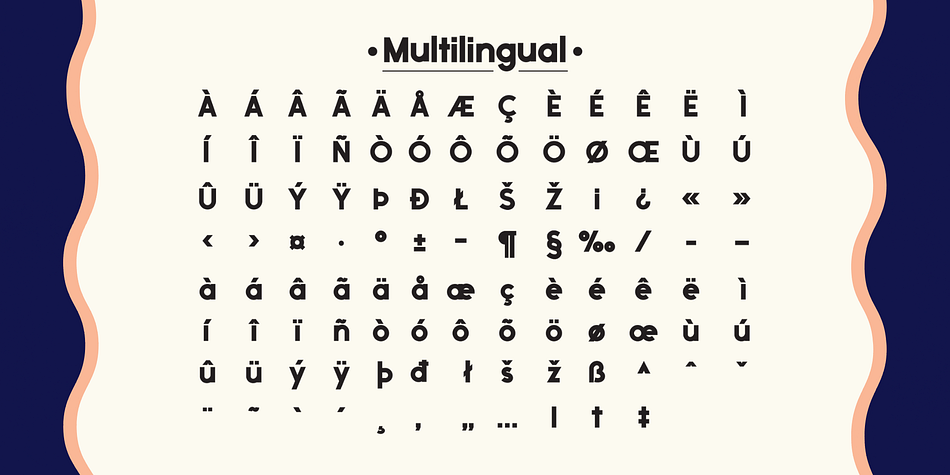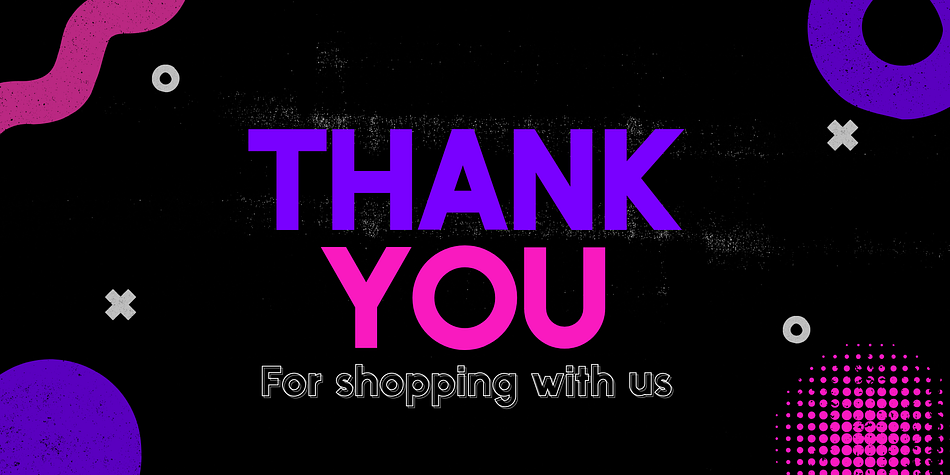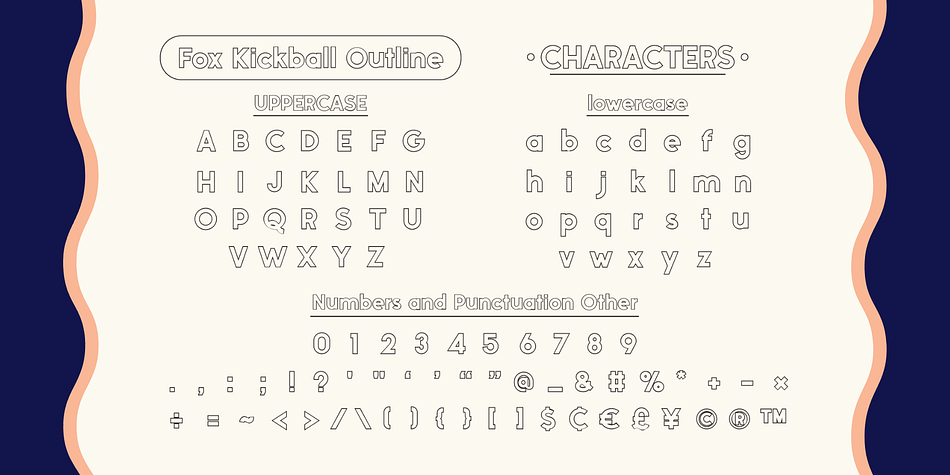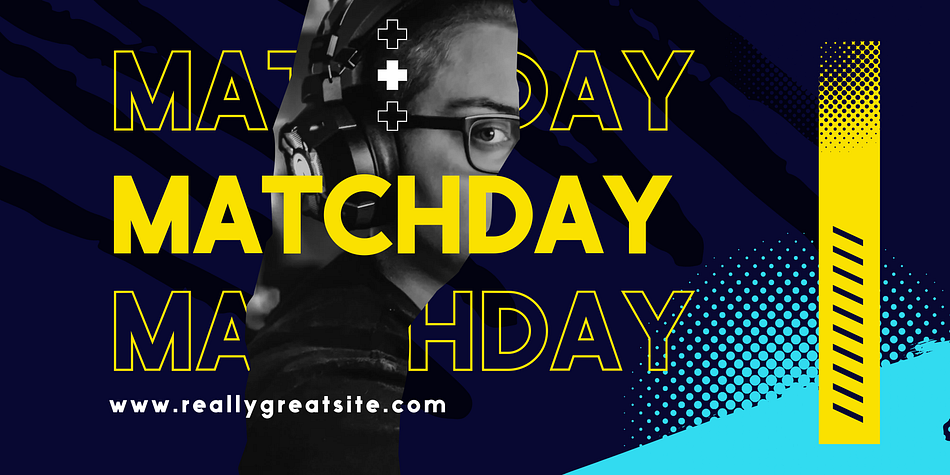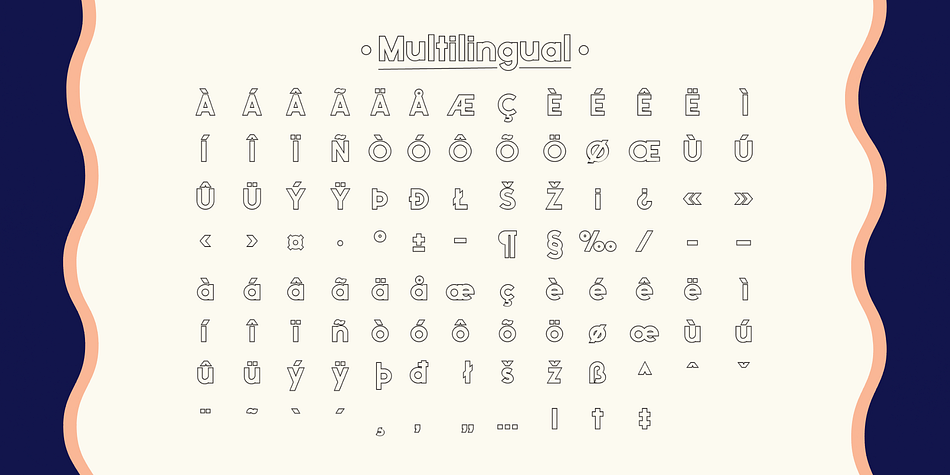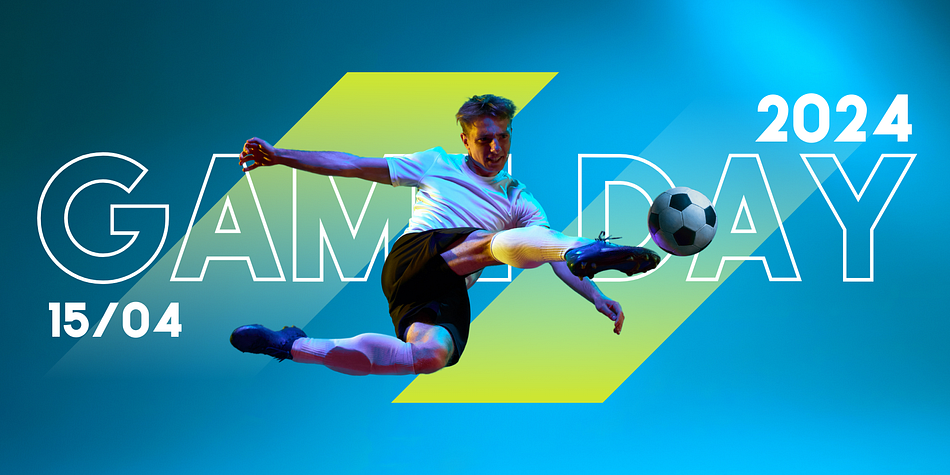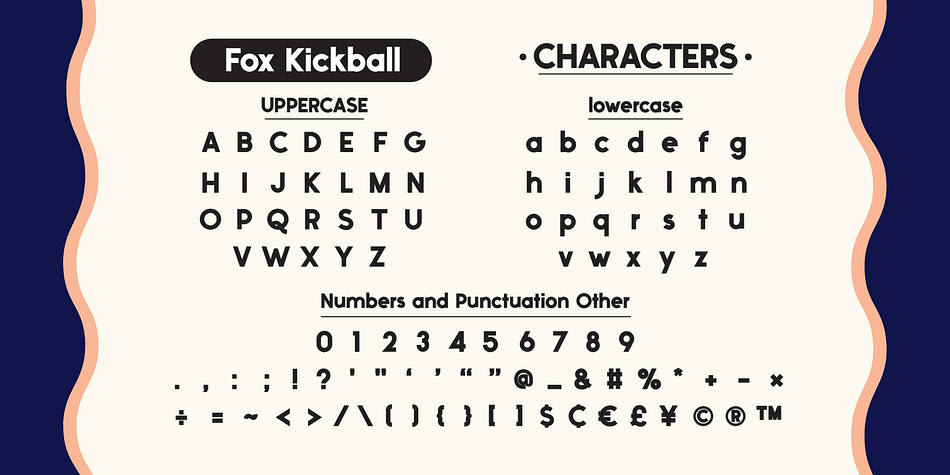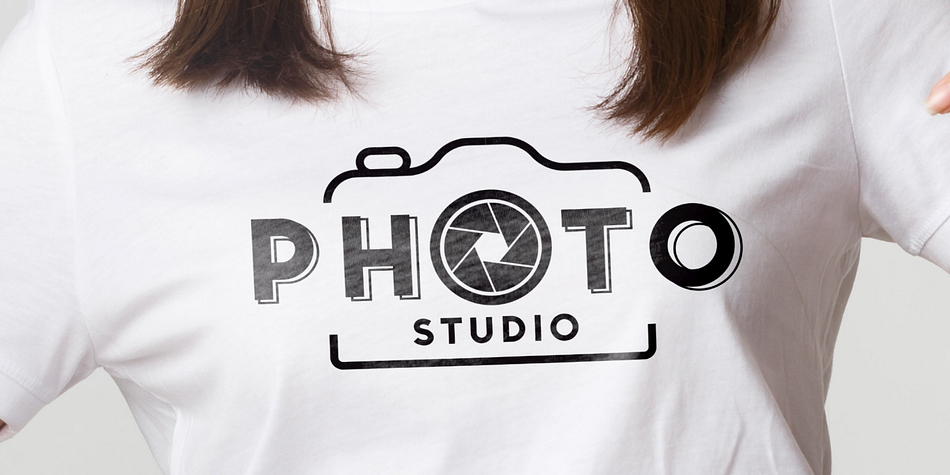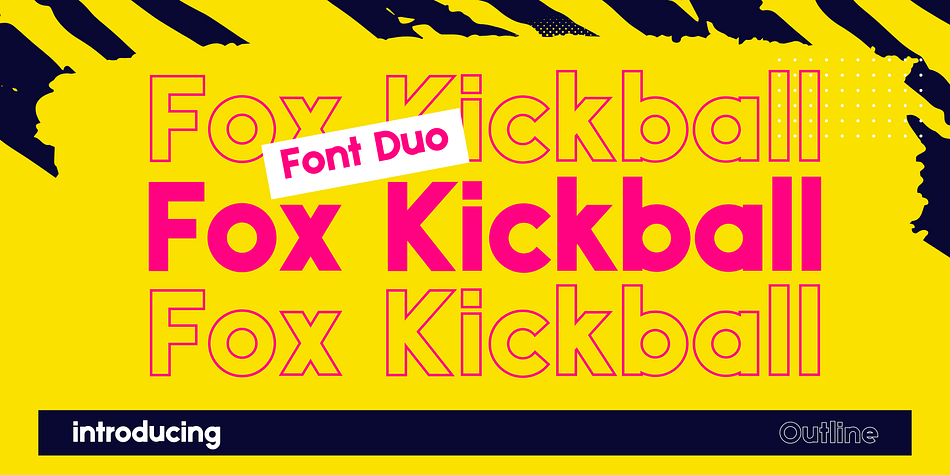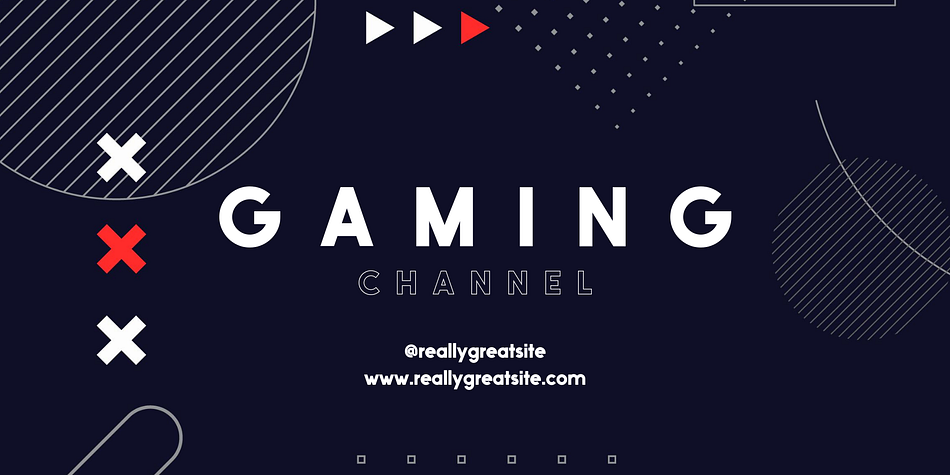
Fox Kickball
Designed by Rattana Rattanawan, Fox Kickball is a display sans font family. This typeface has two styles and was published by Fox7.
Fox Kickball and Fox Kickball Outline are a cool and modern sans-serif font. This font is perfect for publications, menus, logos, business cards, or printed on t-shirts, this font will look outstanding on everything, no matter the topic. This font will be an incredible asset to your fonts’ library, as it has the potential to elevate any creation.